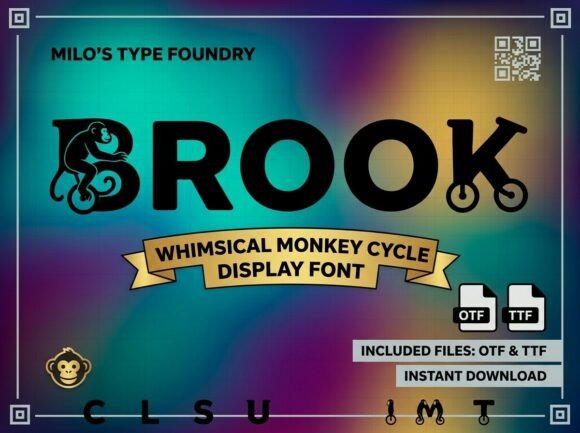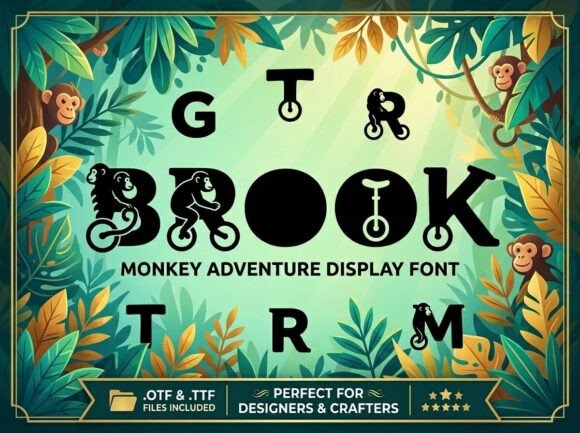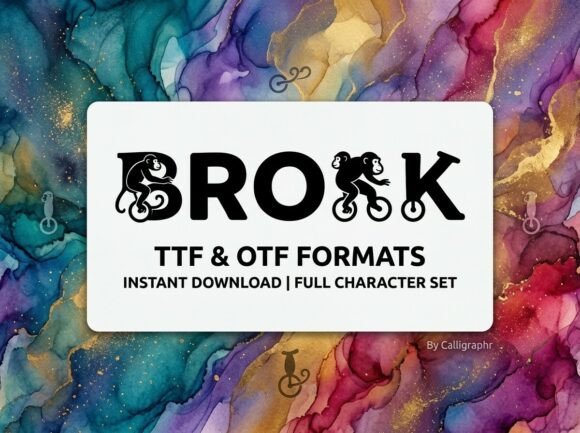
Pedal into Whimsy with Brook Font: The Playful Display Typeface
Are you looking for a font that captures the essence of playfulness and whimsy? Look no further than Brook Font, a bold and rounded display typeface that embodies the spirit of a “circus-and-clever” soul. This unique font features hand-drawn “monkey-on-a-bicycle” silhouettes integrated into the structure of every character, making it a perfect choice for designs that require a touch of vintage toy aesthetics and modern quirky branding.
The Inspiration Behind Brook Font
Brook Font is inspired by the nostalgia of vintage toys and the joy of childhood imagination. The font’s creator aimed to capture the essence of a playful, carefree spirit and translate it into a typographic form that would bring a smile to people’s faces. The result is a font that is both whimsical and clever, making it perfect for designs that require a touch of personality.
Unique Features of Brook Font
Brook Font boasts several unique features that set it apart from other display typefaces. The font’s bold, rounded letterforms are characterized by rhythmic, hand-drawn silhouettes that add a touch of playfulness to any design. The “monkey-on-a-bicycle” silhouettes integrated into every character are a clever touch that adds to the font’s whimsical personality.
Use Cases for Brook Font
Brook Font is the premier choice for a variety of design projects, including:
- Independent children’s entertainment identities: Brook Font is perfect for creating playful and engaging brand identities for children’s entertainment businesses, such as amusement parks, children’s museums, and toy stores.
- Boutique zoo gift shop logos: The font’s whimsical personality makes it a great fit for boutique gift shops looking to create a fun and playful brand identity.
- Creative learning materials: Brook Font is ideal for educational materials that require a touch of playfulness and personality, such as workbooks, activity sheets, and educational posters.
- High-impact social media headers: The font’s bold and playful personality makes it perfect for creating eye-catching social media headers that are sure to grab attention.
Why Choose Brook Font?
Brook Font offers several benefits that make it a great choice for designers and crafters, including:
- Unique and playful personality: Brook Font’s whimsical personality sets it apart from other display typefaces and makes it perfect for designs that require a touch of personality.
- High versatility: The font’s bold and rounded letterforms make it suitable for a wide range of design projects, from children’s entertainment to boutique branding.
- Easy to read: Despite its playful personality, Brook Font is easy to read and can be used for both headlines and body copy.
Tips for Using Brook Font
To get the most out of Brook Font, here are a few tips to keep in mind:
- Use it sparingly: Brook Font’s playful personality can be overwhelming if used excessively. Use it sparingly to create a bold and eye-catching headline or title.
- Pair it with a neutral font: Pair Brook Font with a neutral font to create a balanced and harmonious design.
- Experiment with colors: Brook Font’s bold and playful personality lends itself well to bright and bold colors. Experiment with different color combinations to create a unique and eye-catching design.
Brook Font is a unique and playful display typeface that captures the essence of a “circus-and-clever” soul. With its bold, rounded letterforms and hand-drawn “monkey-on-a-bicycle” silhouettes, it’s perfect for designs that require a touch of vintage toy aesthetics and modern quirky branding. Whether you’re a designer or crafter, Brook Font is a great choice for creating playful and engaging designs that are sure to bring a smile to people’s faces.